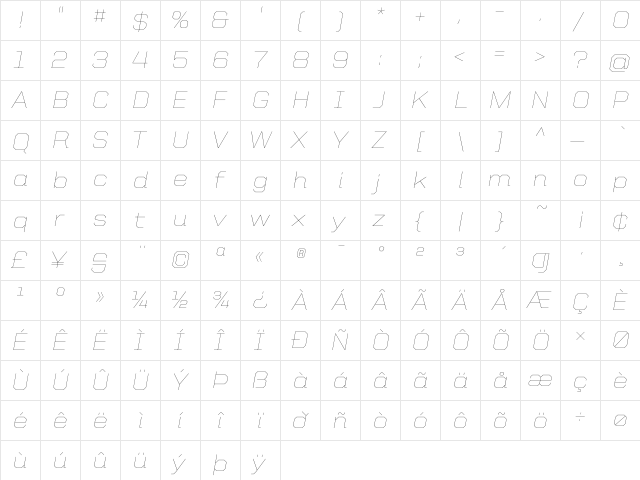
United Italic SemiExt Thin Font Preview
| Foundry | House Industries |
| Designer | Tal Leming |
Design Context for United Italic SemiExt Typeface
United Italic SemiExt offers clean, dependable letterforms without strong stylistic allegiance, making it a practical choice for designers who need flexibility. Its italic angle brings a sense of urgency and motion to the letterforms. Its slender proportions lend an understated elegance to any composition.
Pro Tip: Try United Italic SemiExt for annotation and caption copy alongside an upright companion — the contrast in angle creates a dynamic but ordered typographic system.